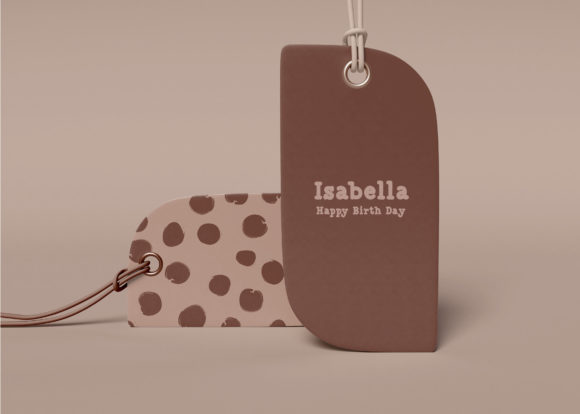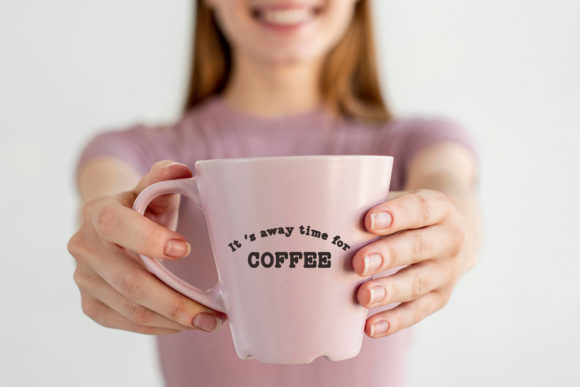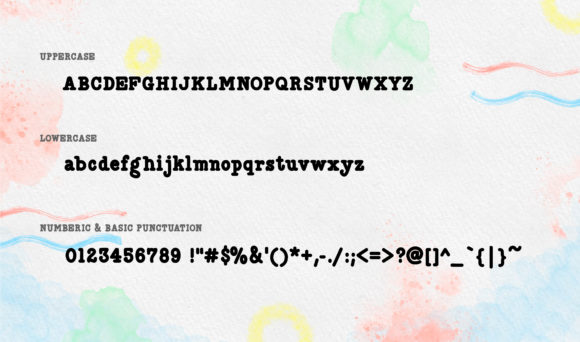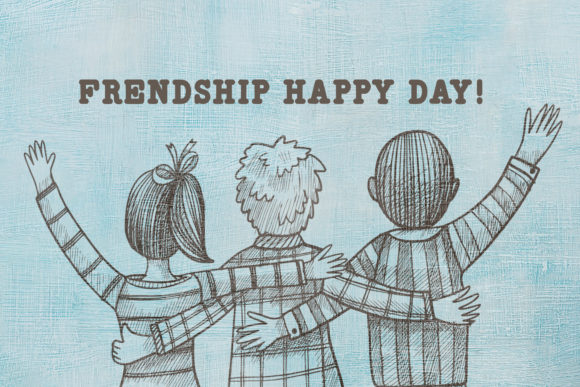
Robbie: A Cool and Vintage-Styled Slab Serif Font
Robbie is a charming slab serif font that combines a cool aesthetic with a vintage style. Its informal design and casual vibe make it an excellent choice for various creative projects that require a relaxed touch.
Key Features of Robbie
• Cool Design: Features trendy letterforms that resonate with contemporary design trends.
• Vintage Style: Evokes a sense of nostalgia while maintaining modern usability.
• Slab Serif Structure: Incorporates thick, rectangular serifs typical of slab serif fonts.
• Versatile Application: Suitable for a wide range of projects, from branding to casual designs.
• Friendly Touch: Adds a warm and inviting feel to any creation.
Ideal Uses for Robbie
Robbie’s unique characteristics make it particularly well-suited for:
• Cartoon-related designs and children’s games
• Quotes and titles in various media
• Brand names and logos that need a relaxed vibe
• Book covers and promotional materials
• Posters and social media graphics
When incorporating Robbie into your designs, consider the following tips:
• Use for headlines or short text to maximize its cool and vintage impact.
• Experiment with different sizes to highlight the font’s unique details.
• Pair with simpler sans-serif fonts for body text to create contrast.
• Take advantage of its versatility across various themes and styles in your projects.
Robbie is an excellent choice for designers looking to add a cool and vintage-styled slab serif font to their typographic toolkit. Its ability to enhance various design projects makes it stand out in the world of typography. Whether you’re working on logo designs, creating layouts for children’s content, or developing any project that requires a touch of beauty, Robbie offers the perfect blend of charm and versatility.
Add Robbie confidently to your favorite creations and let yourself be amazed by the outcomes it generates. From engaging book covers to eye-catching posters, this font provides the tools to create impactful typography that resonates with audiences seeking a relaxed yet stylish aesthetic. It’s adaptable enough for various contexts, from vintage-inspired designs to cute and friendly layouts.
If you’re aiming for a more playful atmosphere, Robbie can easily adapt. Its flexibility allows it to shine in both rustic projects and holiday-themed designs. For those looking to add a nostalgic feel, this font can complement vintage Christmas creations beautifully.